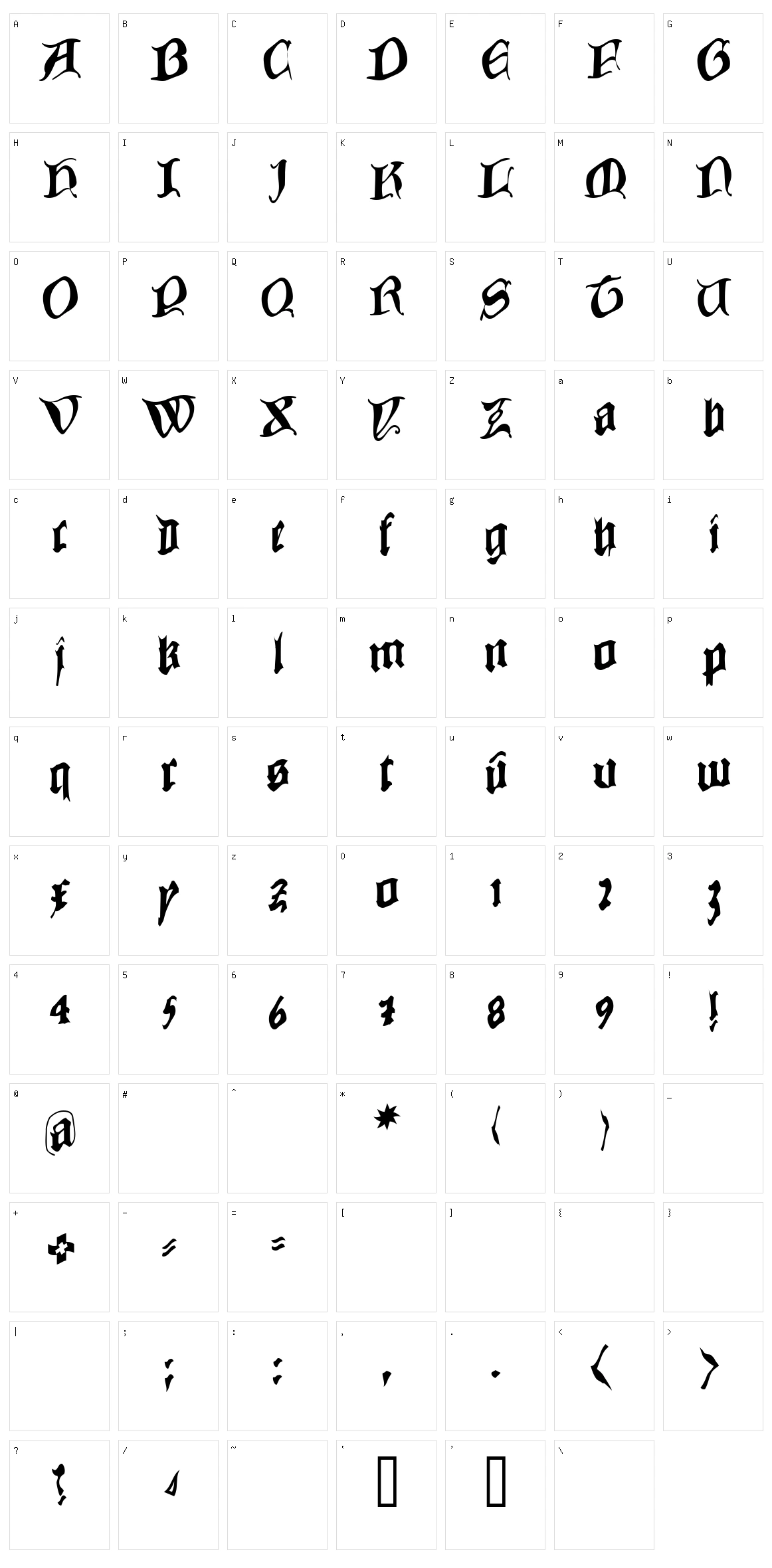
The free font Cowboy Caxton is carefully designed by Manfred Klein, showcasing a thoughtful balance of creativity and usability and belongs to the Gothic font family. When you download the ZIP file, it contains only 59.55 KB of font files, making it lightweight and quick to download. Please review the license details below to understand permitted usage and distribution rights. If license information is not available, we recommend using this font for personal projects only or contacting the author directly for commercial usage permissions.